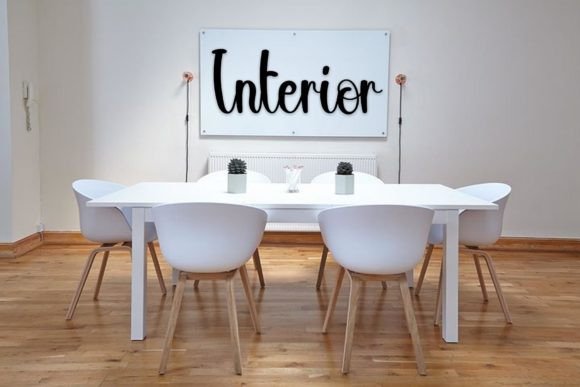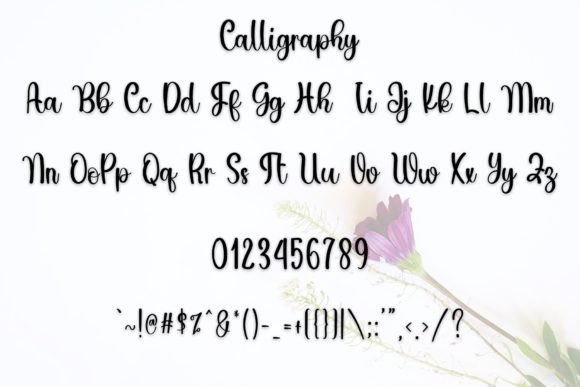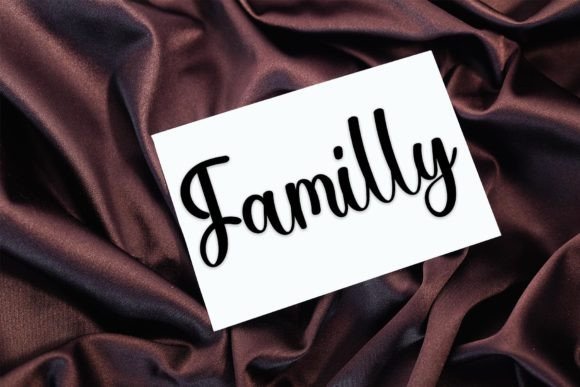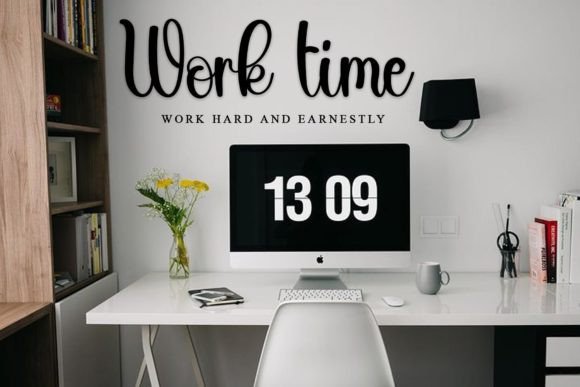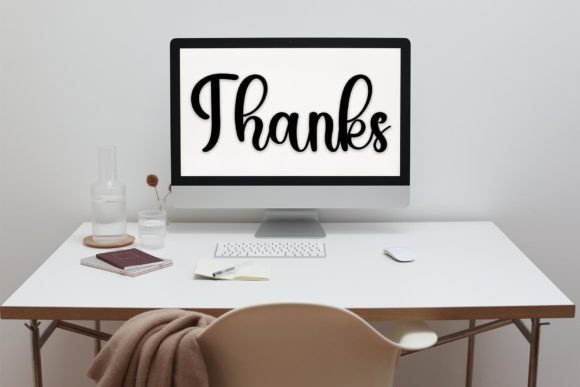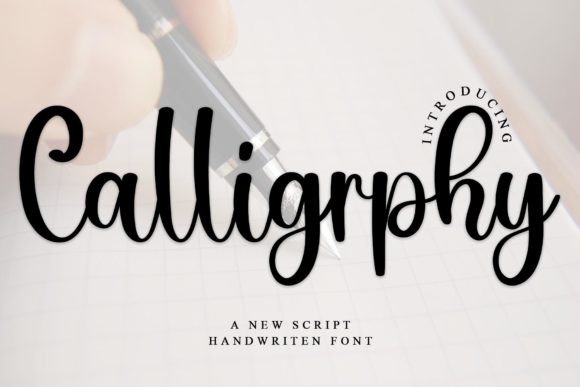
Elevate Your Designs with the Elegance of Calligraphy Fonts
Calligraphy is a neat and beautiful handwritten font described by an elegant touch, perfect for your favorite projects. Fall in love with its incredibly distinct and timeless style, and use it to create spectacular designs! In this article, we’ll dive into the world of calligraphy fonts, exploring their history, characteristics, and uses, as well as provide tips on how to choose the perfect calligraphy font for your next project.
A Brief History of Calligraphy
Calligraphy has a rich history dating back to ancient civilizations, where it was used for decorative writing and artistic expression. The word “calligraphy” comes from the Greek words “kallos” meaning beauty and “graphein” meaning writing. Over the centuries, calligraphy has evolved, influenced by various cultures and artistic movements, resulting in a diverse range of styles and techniques.
Characteristics of Calligraphy Fonts
Calligraphy fonts are known for their distinctive and elegant appearance, characterized by:
• Flowing connections between letters
• Intricate letterforms and flourishes
• Emphasis on beauty and legibility
• Often, a sense of movement and rhythm
Types of Calligraphy Fonts
There are several types of calligraphy fonts, each with its own unique style and characteristics. Some popular types include:
• Copperplate Calligraphy: Known for its precise and elegant letterforms, copperplate calligraphy is a popular choice for formal and wedding designs.
• Brush Calligraphy: This style mimics the look of brush painting, with bold and expressive letterforms.
• Spencerian Calligraphy: Developed in the 19th century, Spencerian calligraphy is characterized by its flowing connections and intricate letterforms.
• Modern Calligraphy: A contemporary take on traditional calligraphy, modern calligraphy often features bold and creative letterforms.
Uses of Calligraphy Fonts
Calligraphy fonts are versatile and can be used in a variety of design projects, including:
• Wedding and Event Design: Add a touch of elegance to wedding invitations, programs, and signage with calligraphy fonts.
• Branding and Packaging: Use calligraphy fonts to create unique and memorable brand identities.
• Graphic Design: Incorporate calligraphy fonts into your graphic designs, such as posters, flyers, and brochures.
• Digital Art: Experiment with calligraphy fonts in digital art, such as illustrations and typography.
Tips for Choosing the Perfect Calligraphy Font
With so many calligraphy fonts to choose from, selecting the perfect one for your project can be overwhelming. Here are some tips to help you make the right choice:
• Consider the occasion: Choose a calligraphy font that suits the tone and style of your project.
• Think about legibility: Select a font that is easy to read, especially for body text.
• Look for versatility: Choose a font that can be used in various design applications.
• Experiment and have fun: Try out different fonts and combinations to find the perfect fit.
Calligraphy fonts offer a unique and elegant way to elevate your designs. With their rich history, distinctive characteristics, and versatility, it’s no wonder calligraphy fonts are a popular choice among designers and crafters. By understanding the different types of calligraphy fonts and following our tips for choosing the perfect font, you’ll be well on your way to creating spectacular designs that showcase the beauty of calligraphy.